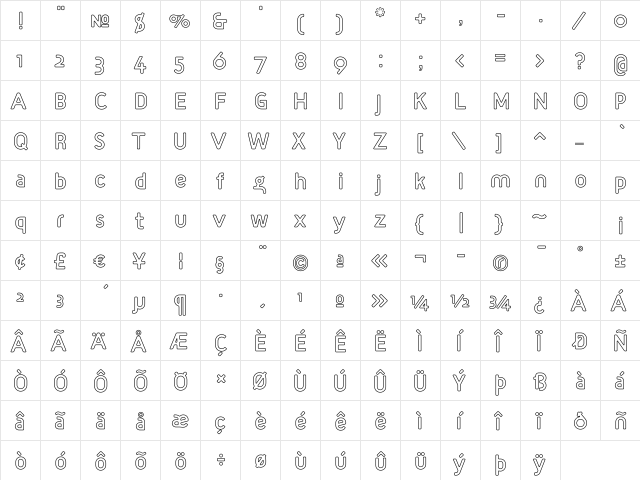
TargetOpen Regular Font Preview
TargetOpen Regular
TargetOpen Regular Font Details
Design Context for TargetOpen Typeface
TargetOpen takes a measured approach to typography — its balanced proportions and neutral character make it a reliable workhorse for both digital and print work.